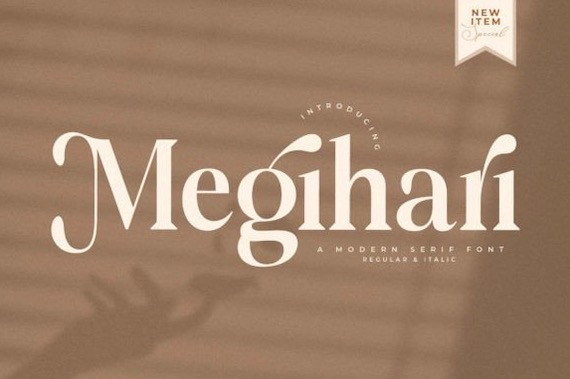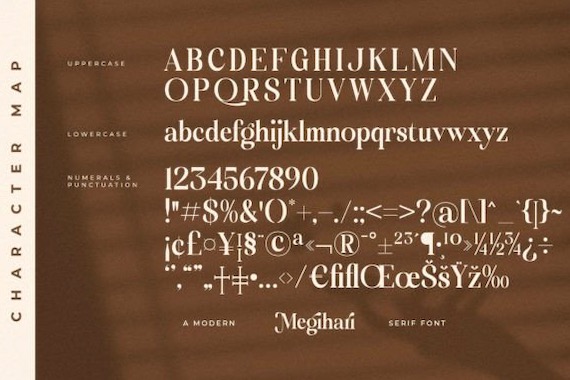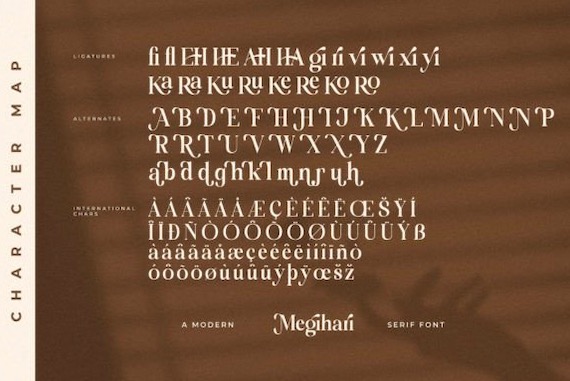
Megihari Font
Introducing a great serif font that was created and shared by Storytype Studio. It’s a chic and refined serif font that combines elegance and modernity. Its slender and graceful lines give it a sophisticated and upscale look, perfect for fashion and luxury branding. Megihari’s clean and minimalist design also makes it versatile for a variety of design projects, from editorial layouts to wedding invitations. With its timeless and classic appeal, Megihari adds a touch of refinement to any project.